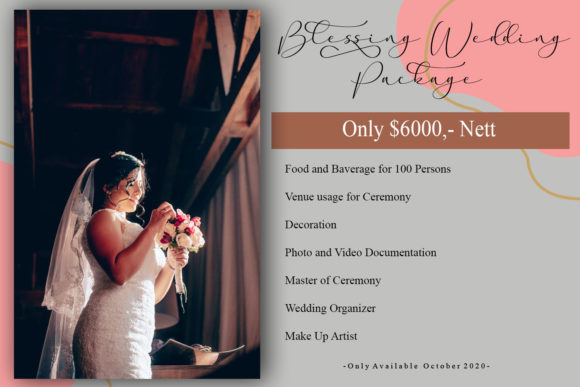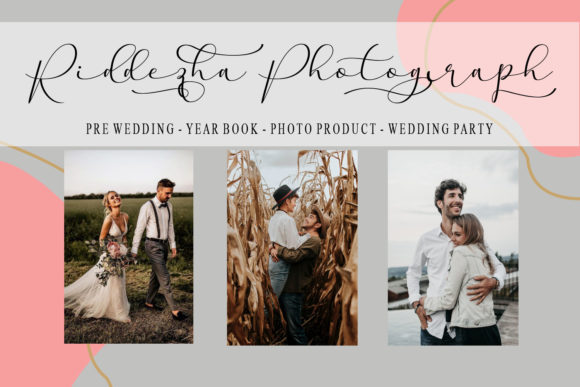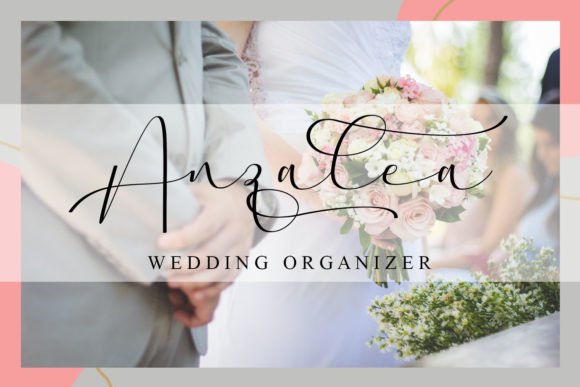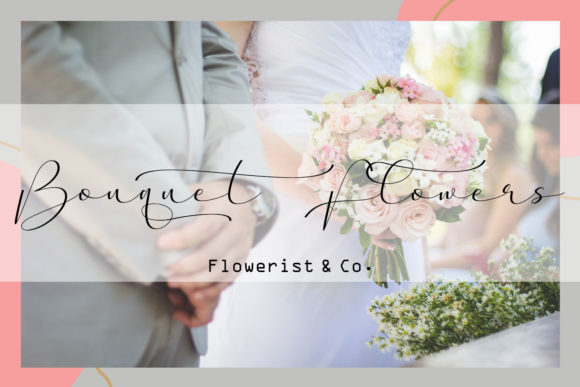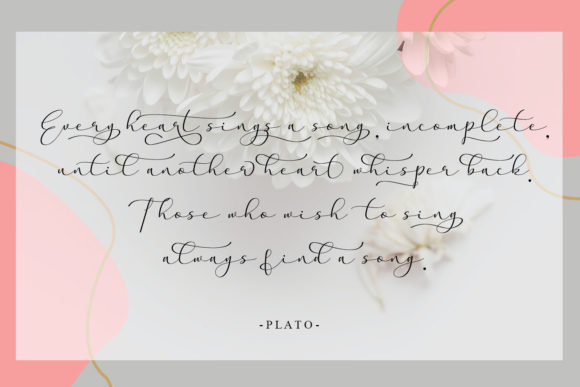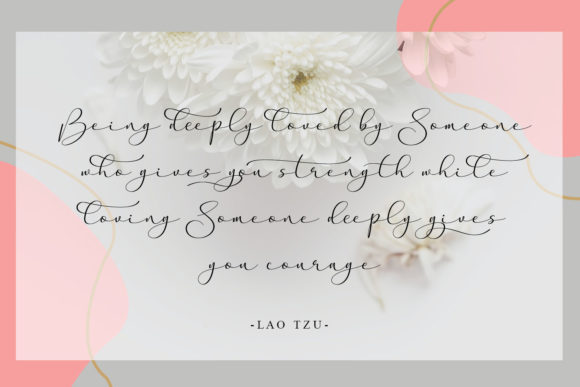
Aaqheella Font: Elevate Your Design Projects with Elegance and Sophistication
In the world of typography, a font can make or break a design project. Aaqheella Font is a modern and flowing script font that brings its own unique style to any design project. With its elegant and sophisticated look, Aaqheella is perfect for designers and crafters looking to elevate their designs to the highest level.
What Makes Aaqheella Font Special?
Aaqheella Font is a versatile script font that can be used for a wide range of design projects, including branding, headings, wedding designs, invitations, signatures, logos, labels, and much more. Its modern and flowing design makes it perfect for creating beautiful and eye-catching designs that will leave a lasting impression.
One of the standout features of Aaqheella Font is its PUA (Private Use Area) encoding. This means that you can access all of the glyphs and swashes with ease, giving you complete creative control over your designs. Whether you’re a professional designer or a crafty DIY enthusiast, Aaqheella Font is easy to use and provides endless possibilities for creative expression.
Aaqheella Font is perfect for designers and crafters who want to add a touch of elegance and sophistication to their designs. Whether you’re creating wedding invitations, branding materials, or social media graphics, Aaqheella Font is sure to impress. Its modern and flowing design makes it perfect for creating beautiful and eye-catching designs that will leave a lasting impression.
For designers, Aaqheella Font is a great addition to any font library. Its versatility and range of uses make it a valuable asset for any design project. For crafters, Aaqheella Font is a great way to add a professional touch to your DIY projects. Whether you’re creating handmade cards, invitations, or decorations, Aaqheella Font is sure to elevate your designs to the next level.
Key Features of Aaqheella Font
- Modern and flowing script font: Aaqheella Font features a beautiful and elegant script design that is perfect for creating eye-catching designs.
- PUA encoded: Aaqheella Font is PUA encoded, making it easy to access all of the glyphs and swashes.
- Versatile: Aaqheella Font can be used for a wide range of design projects, including branding, headings, wedding designs, invitations, signatures, logos, labels, and much more.
- Elegant and sophisticated: Aaqheella Font features an elegant and sophisticated design that is perfect for creating beautiful and eye-catching designs.
Aaqheella Font is a modern and flowing script font that brings its own unique style to any design project. With its elegant and sophisticated look, Aaqheella is perfect for designers and crafters looking to elevate their designs to the highest level. Its PUA encoding makes it easy to access all of the glyphs and swashes, giving you complete creative control over your designs. Whether you’re a professional designer or a crafty DIY enthusiast, Aaqheella Font is a great addition to any font library.